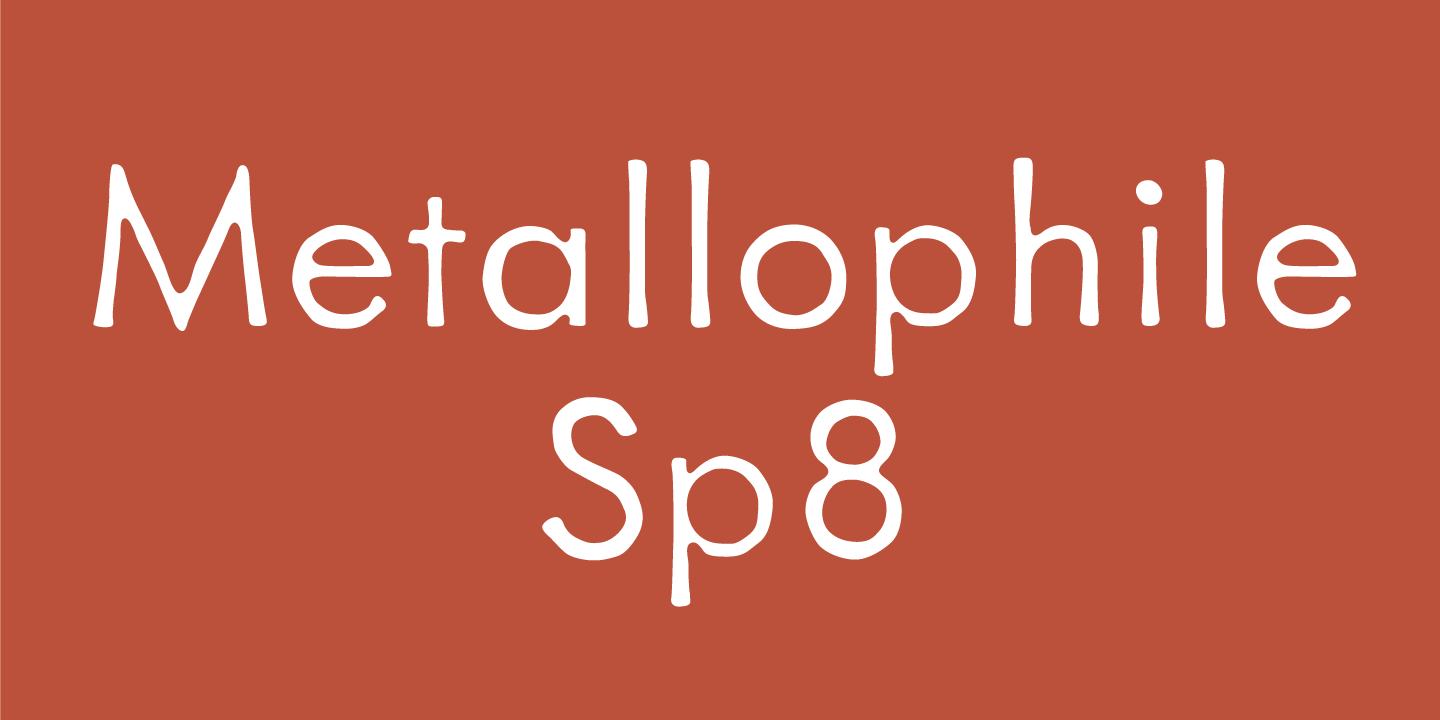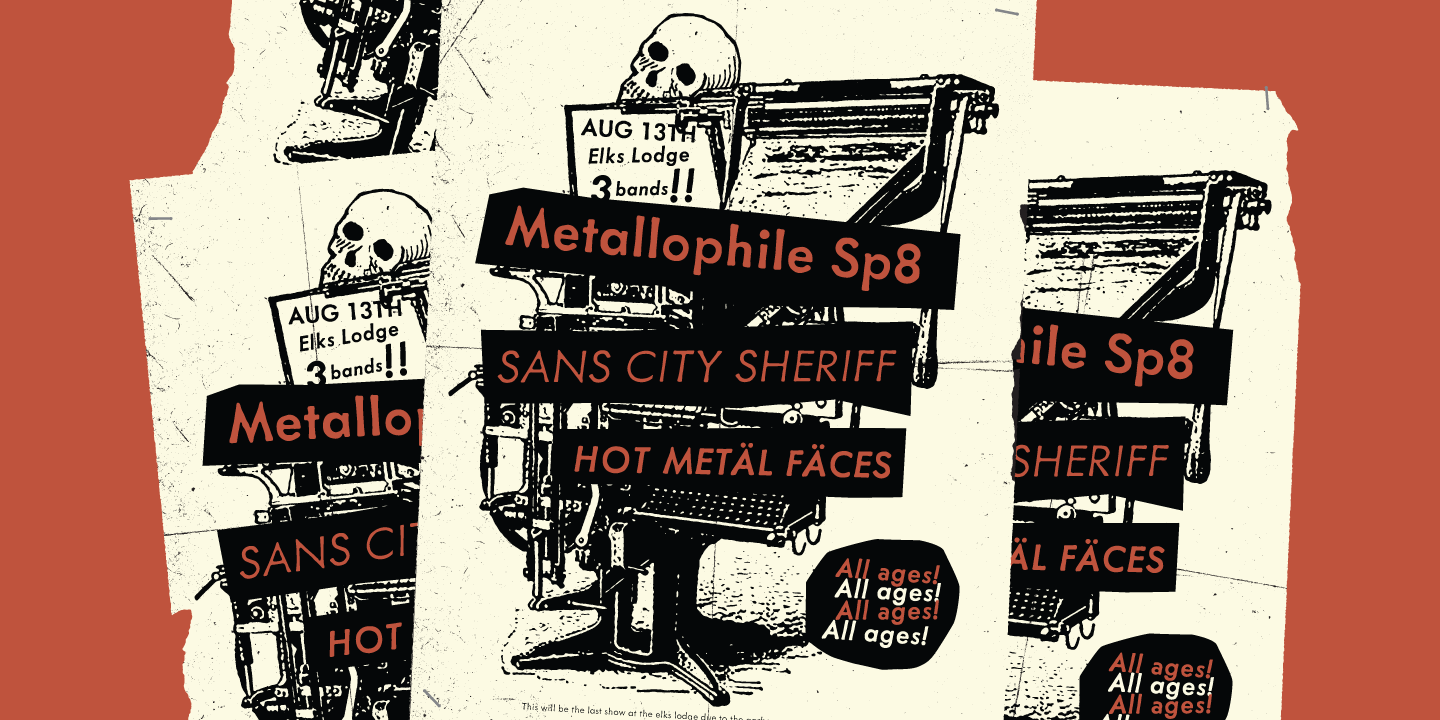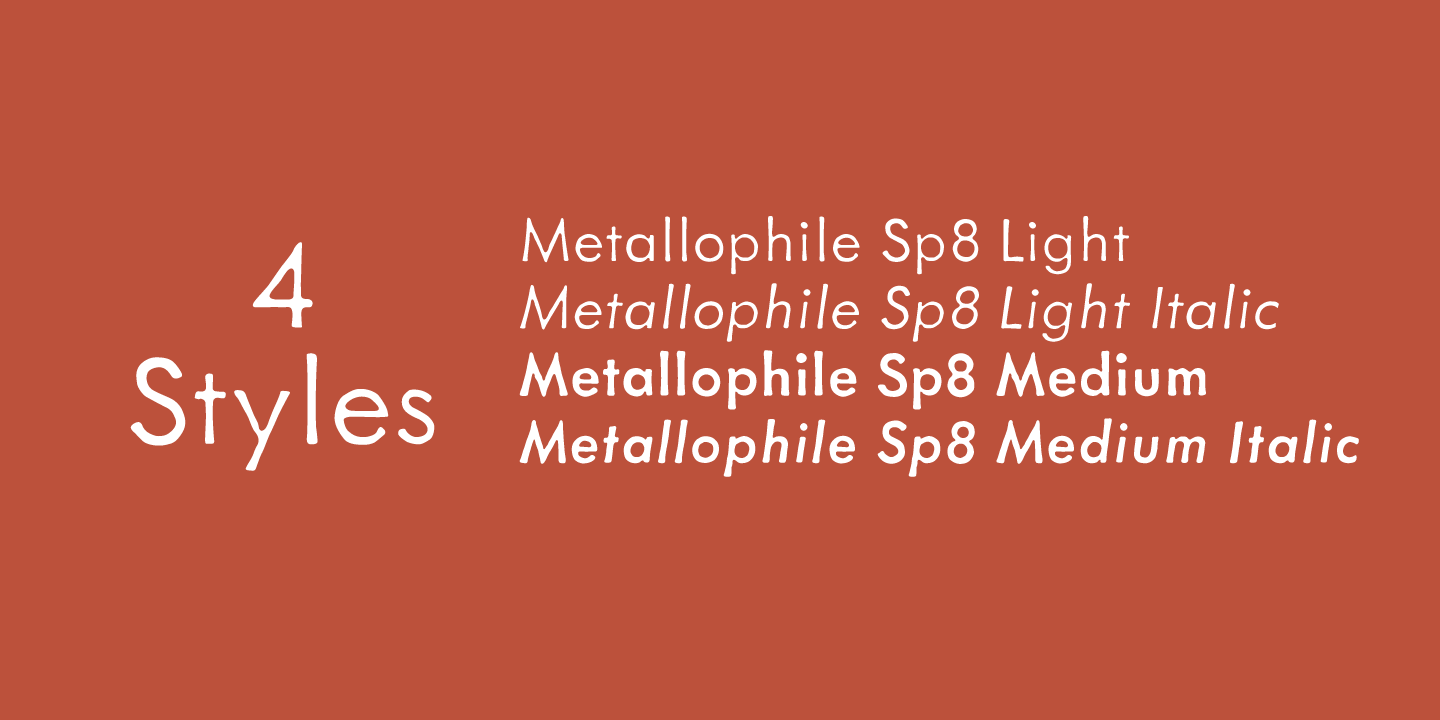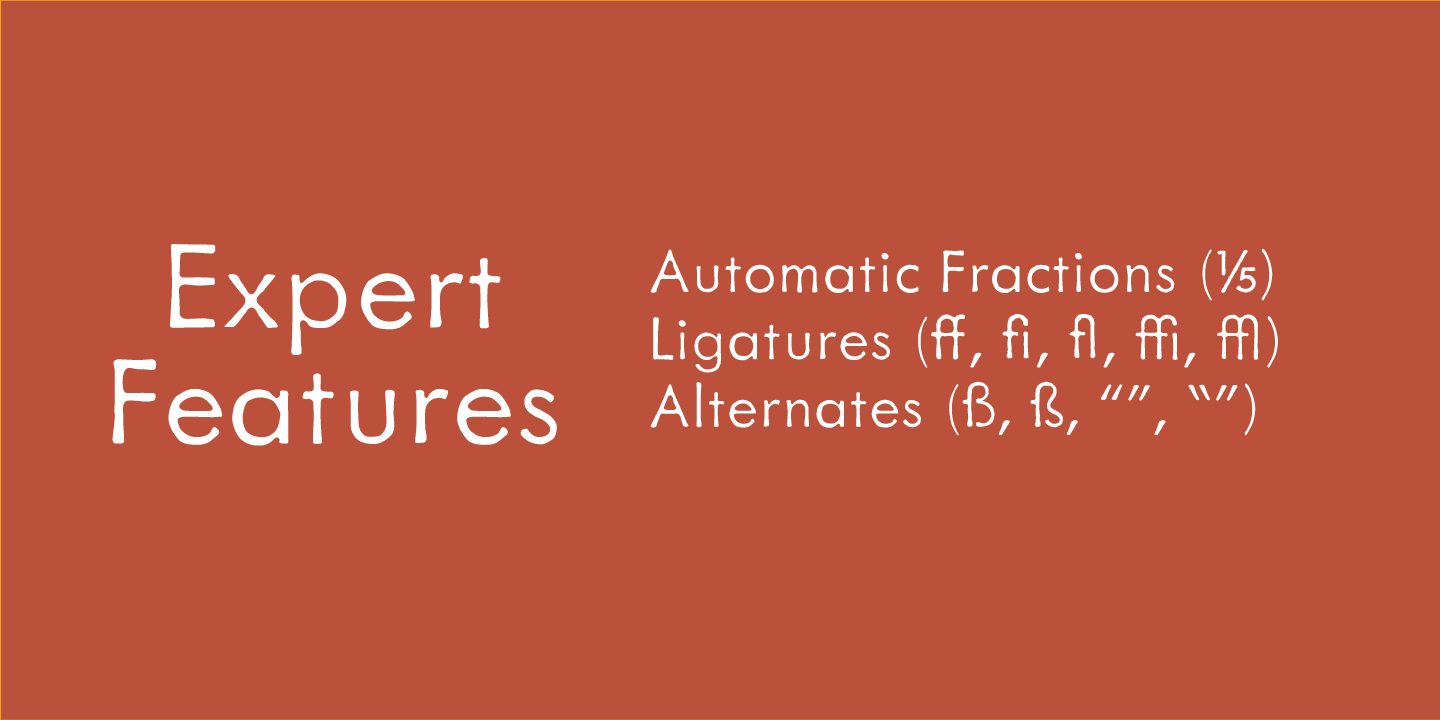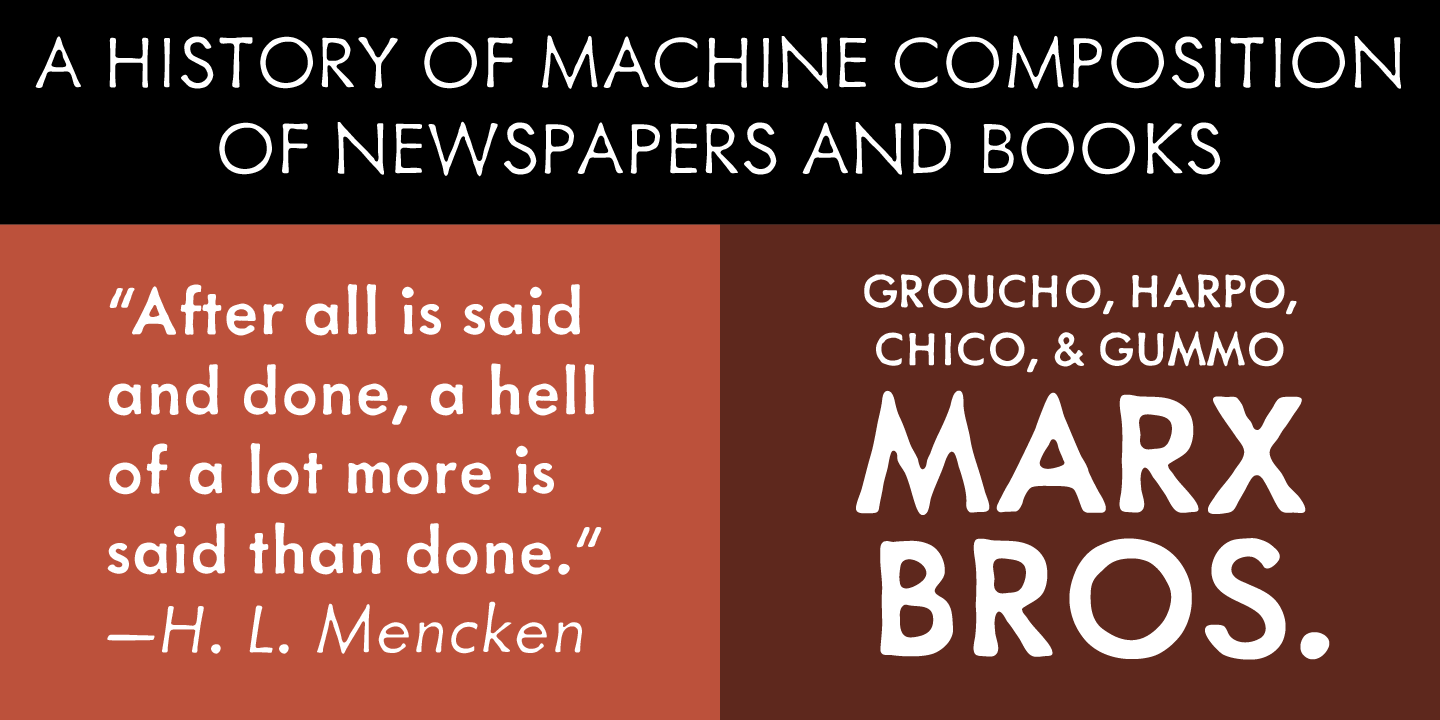
About Metallophile Sp8 Font Family Metallophile Sp8 is a faithful facsimile of an 8 point sans serif typeface as set on a 1940s vintage hot metal typesetting machine and printed on coated paper stock, Although the letterforms are closely based on Futura, the effect is very different from its modern cousins, which are drawn more rigidly, and use only one design for all sizes
Metallophile Sp8 is meant to be used at or near 8 points, that’s never stopped anybody from using it large, Designers: Mark SimonsonPublisher: Mark SimonsonFoundry: Mark SimonsonDesign Owner: Mark SimonsonMyFonts debut: Dec 8, 2003 Metallophile Sp8™ is a trademark of Mark Simonson Studio